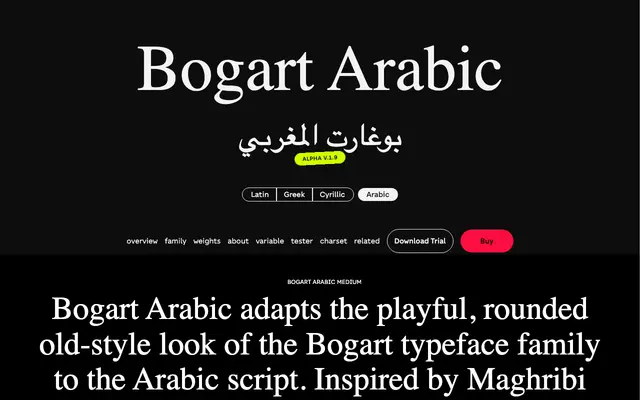
Bogart Arabic
Zetafonts · Cosimo Lorenzo Pancini · 2024
An Arabic companion to the Bogart family, drawing on Maghribi calligraphy's rounded forms and ball terminals to carry the original's chunky, playful character into Arabic script.
Designed by Cosimo Lorenzo Pancini after Francesco Canovaro's original Bogart, the Arabic extension follows the Maghribi calligraphic tradition, a Moroccan style noted for its unusual rounded shapes and ball terminals. Calligrapher Aziz Bouyabrine helped adapt the traditional model for digital use, balancing playfulness with legibility across nine weights from Thin to Black. A variable font is included with the full family, and coverage spans 217 languages across Latin and Arabic scripts.
A rounded old-style display design adapted for Arabic script using Maghribi calligraphic conventions, with distinctive ball terminals and chunky, pop-inflected letterforms that sit comfortably in the display category.